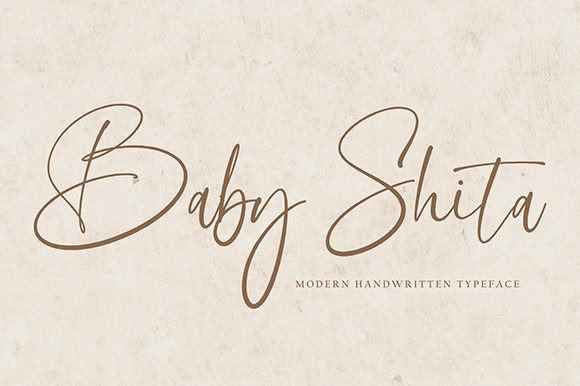
Introduction to Baby Shita Font
Baby Shita is a sweet and delicate handwritten font.
Dainty and joyful, this font will be ideal for writing wedding invitations, cards, or any other design that may need a romantic, personalized touch .